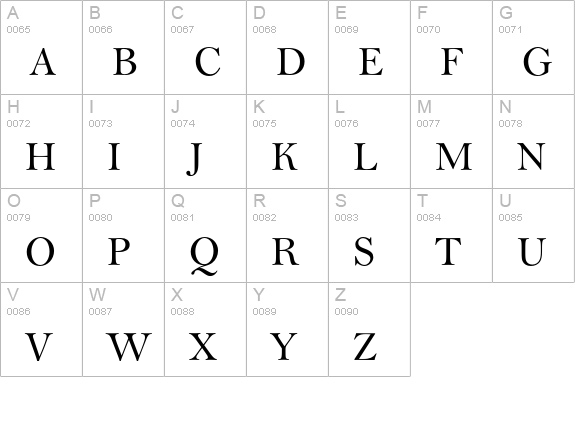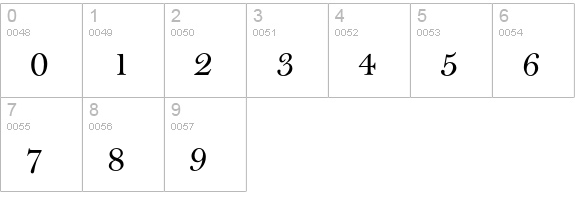
Bell T Medium is a balanced, medium-weight variant in the Bell typeface family \xE2\x80\x94 well suited to sub-headlines, navigation, and balanced editorial work.
Bell T Medium is a classic and elegant font that exudes sophistication and timelessness. Its medium weight strikes the perfect balance between boldness and subtlety, making it versatile for a wide range of design projects. The clean lines and sharp edges of Bell T Medium give it a modern yet timeless appeal, making it a popular choice for branding, editorial design, and more. What sets Bell T Medium apart is that it is not only a high-quality font but also available for free download at FontsMarket.com. This means that designers and creatives can easily access this premium font without any cost, making it a valuable addition to their font library. Whether you're working on a logo, poster, website, or any other design project, Bell T Medium is sure to elevate your work with its refined and polished aesthetic. Don't miss out on the opportunity to enhance your designs with Bell T Medium - download it for free today at FontsMarket.com and take your typography game to the next level.